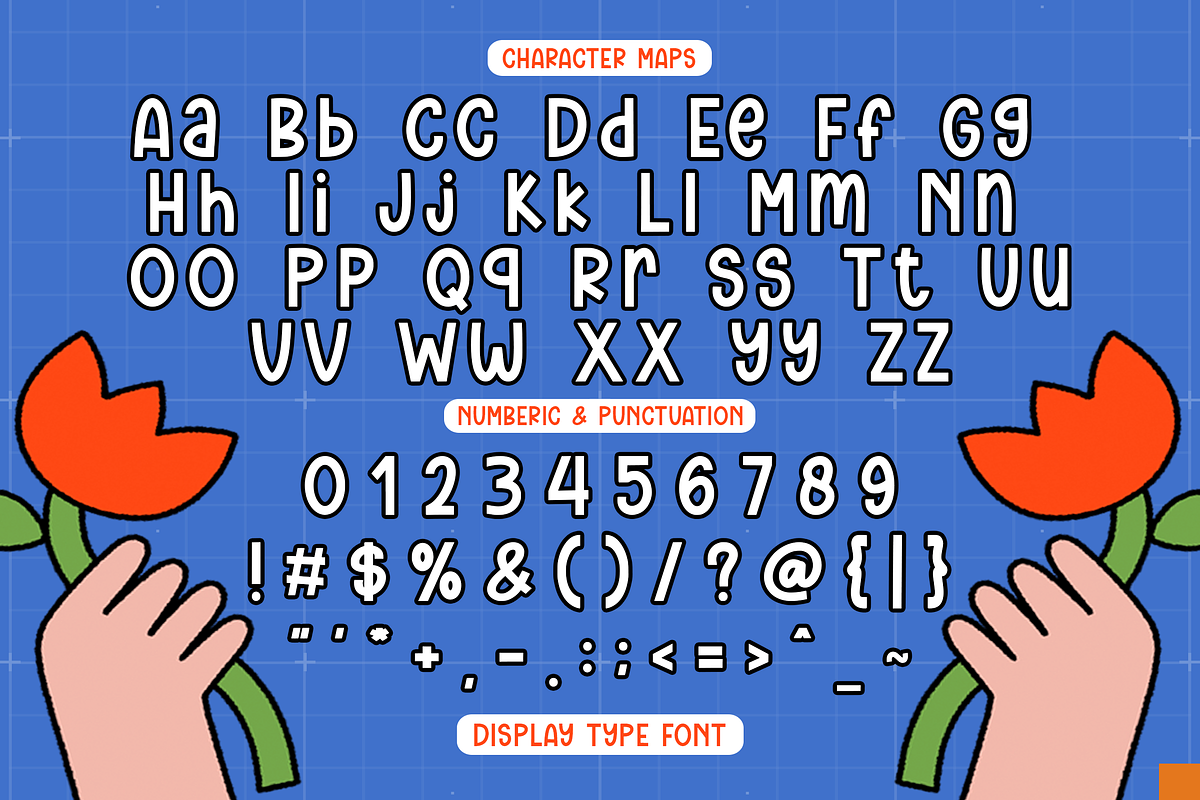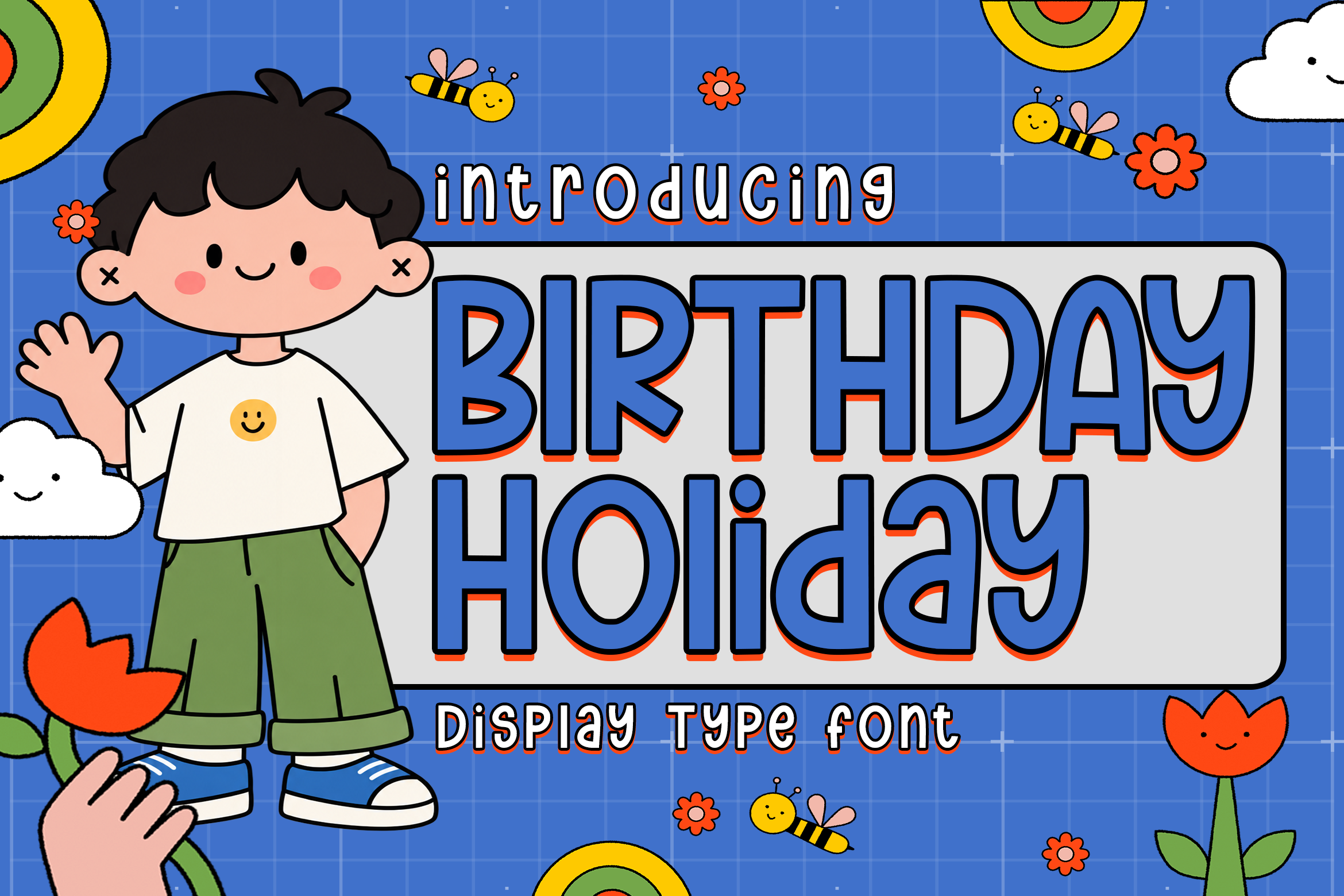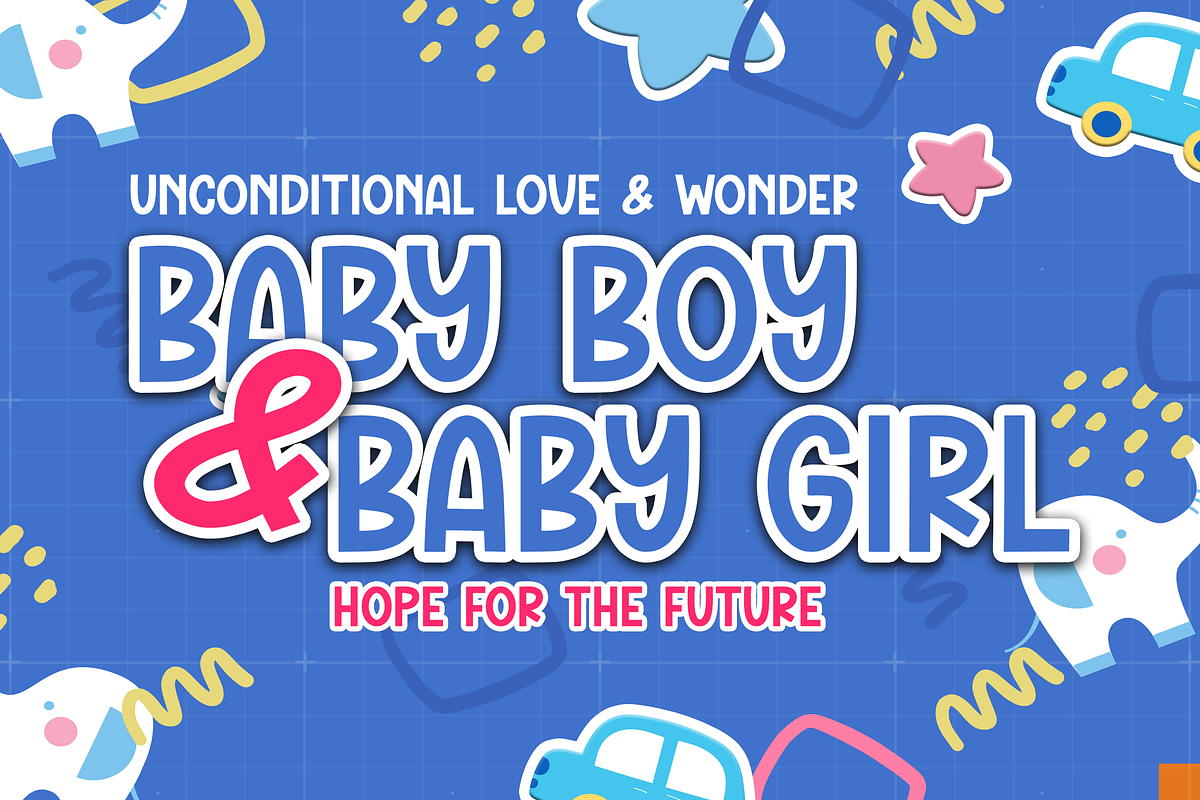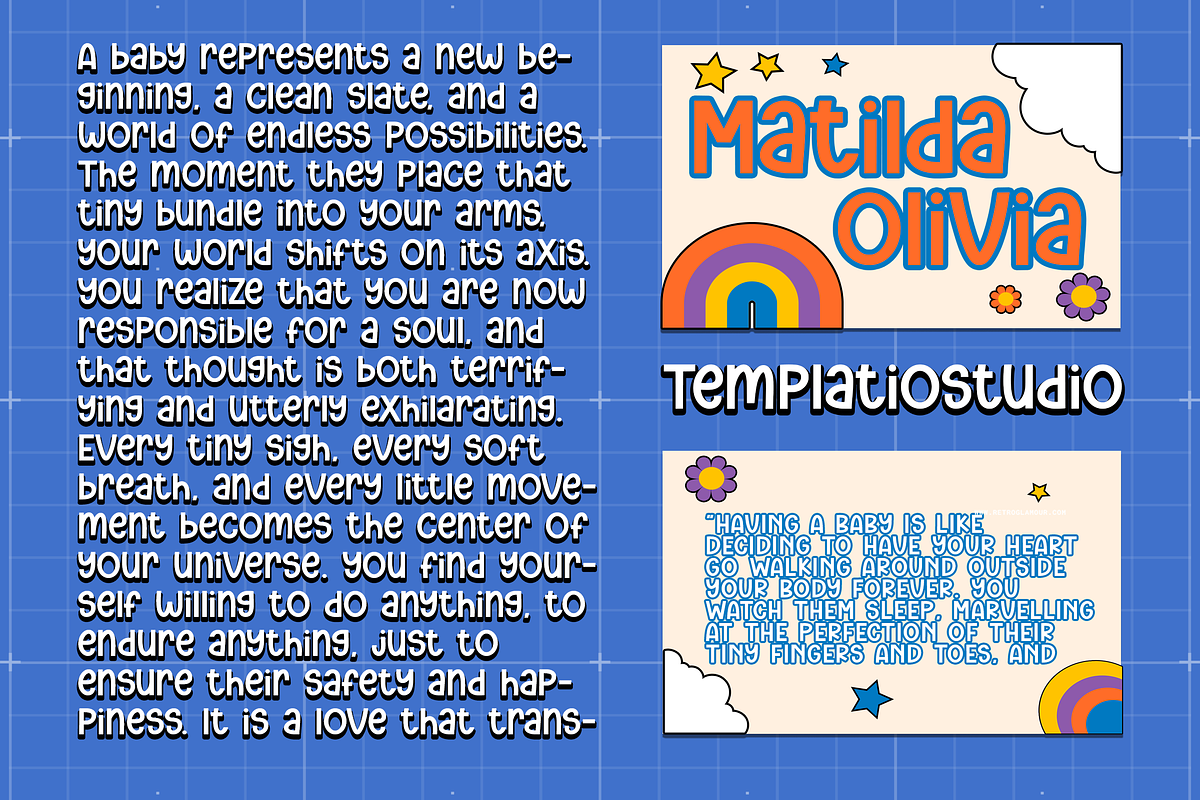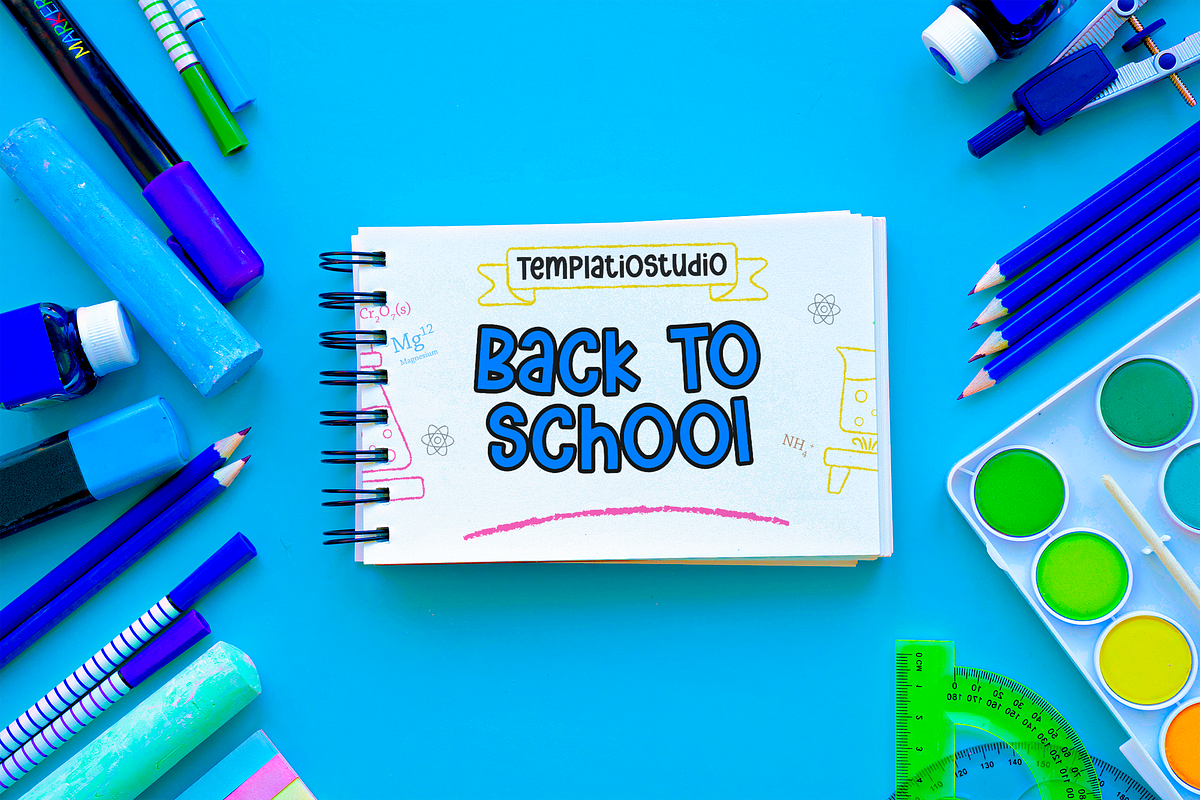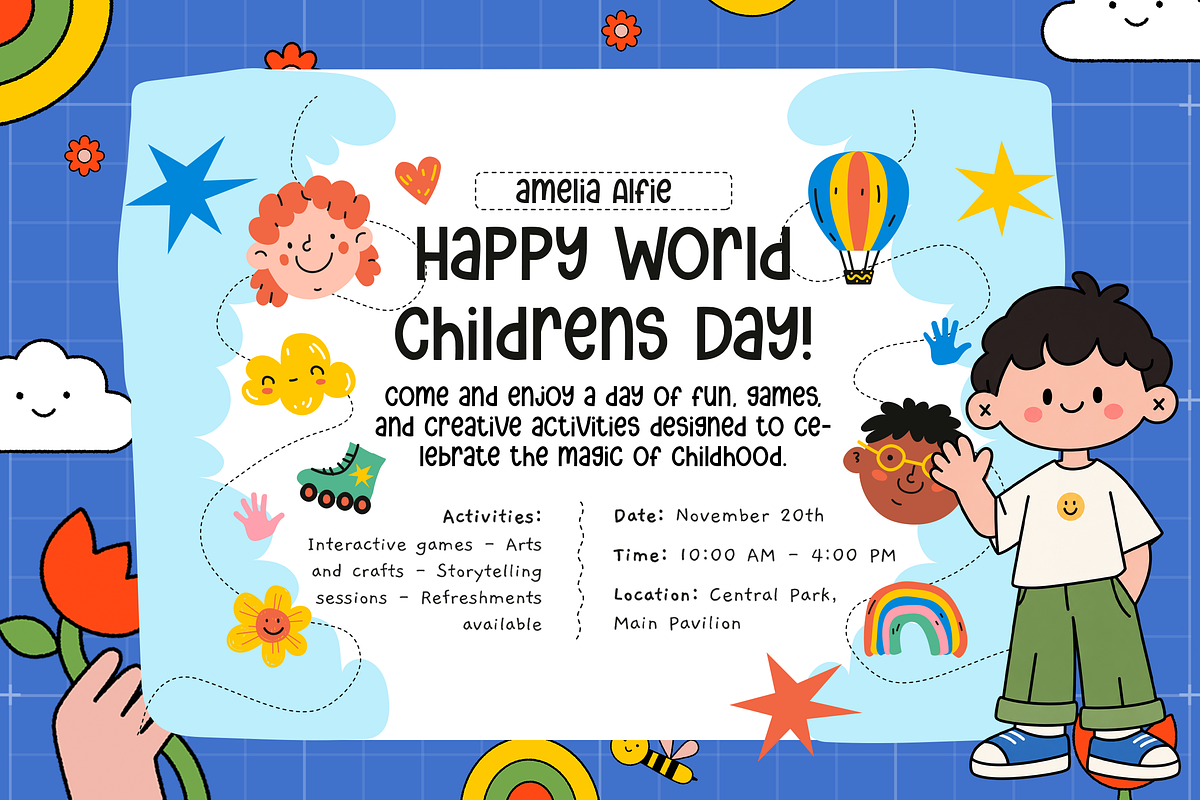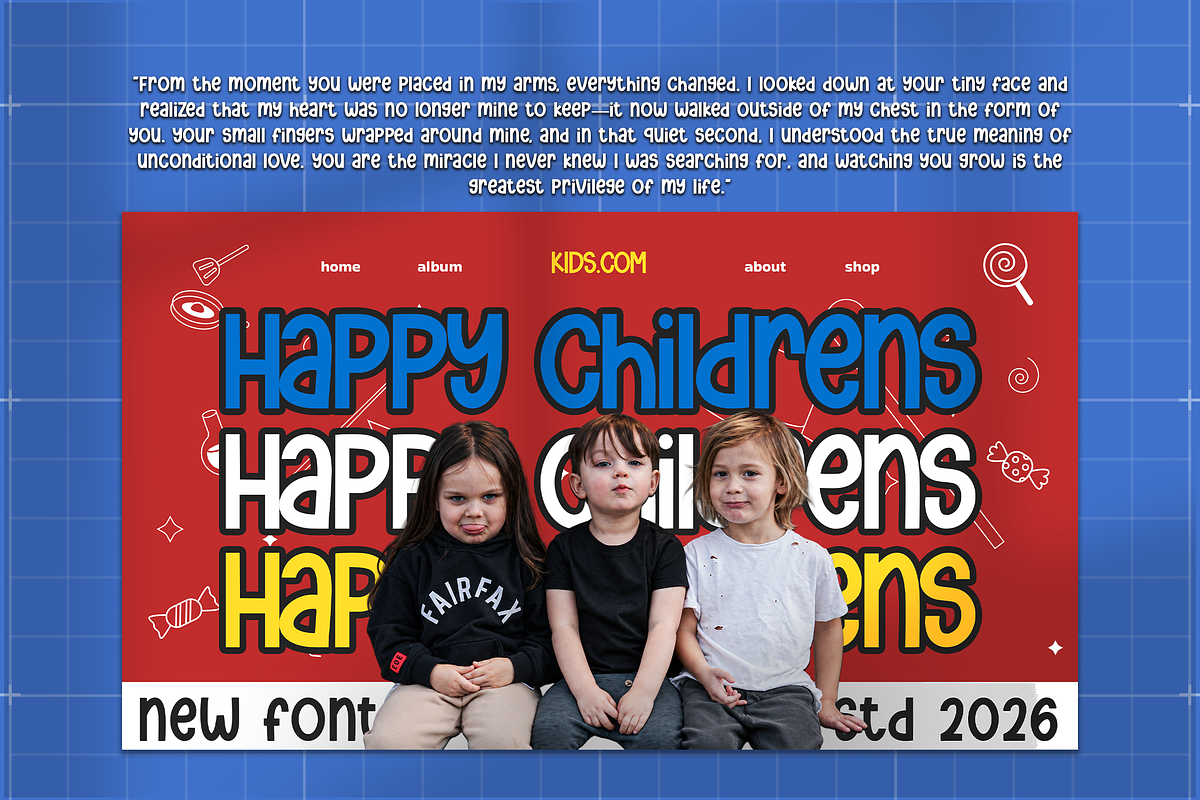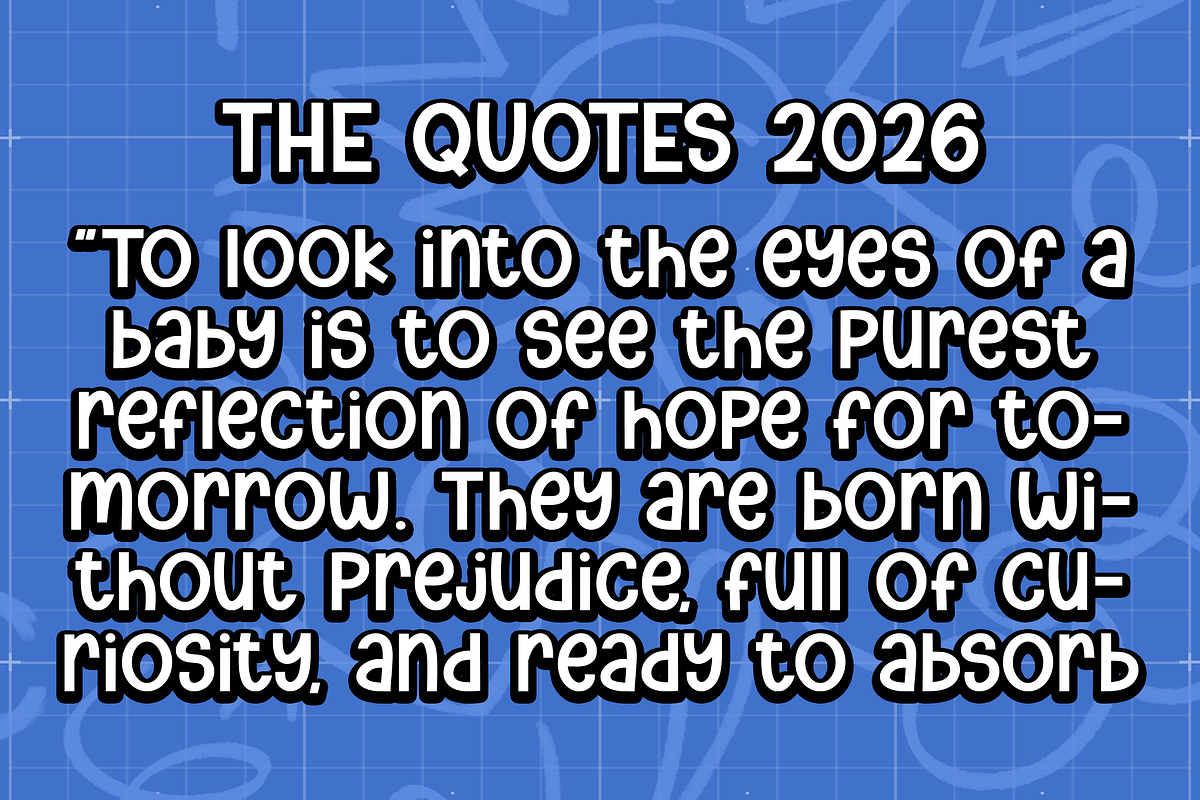
Birthday Holiday Display Font
Birthday Holiday is a playful and cheerful display font designed to bring a fun celebration feel to your creative projects.
Its bold and friendly character makes it suitable for birthday invitations, party decorations, greeting cards, posters, social media graphics, banners, stickers, packaging, merchandise, and other festive designs.
This font is ideal for designers, crafters, small businesses, and anyone looking for a fun display typeface with a strong birthday and celebration atmosphere.
- Playful display style
- Suitable for birthday and celebration designs
- Great for invitations and greeting cards
- Perfect for posters, banners, stickers, and social media
- Suitable for Cricut and other creative projects